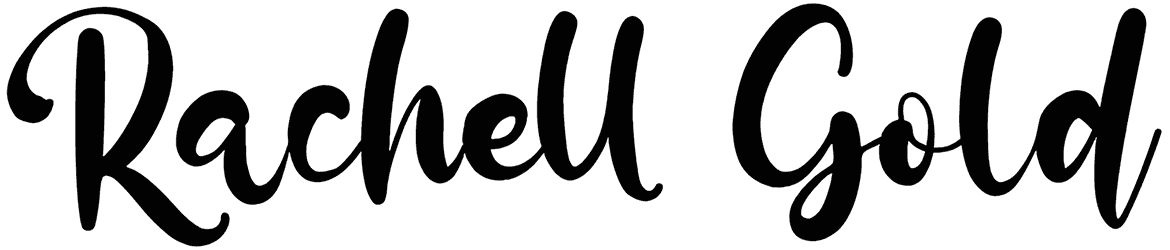
Rachell Gold Font
Rachell Gold is a beautiful, charming script font. Whether you’re making invitations, social media postings, or brand materials, this font is a great way to show off your unique style.
The Rachell Gold font adds a dash of elegance and romance to your work with its curving lines and sweeping arcs. Our modern website, RB, is a win-win situation, as it features eye-catching fonts like Rachell Gold.